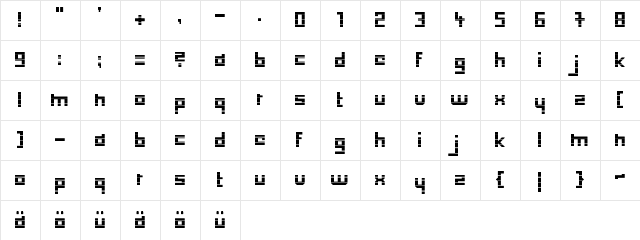
low-down-cut Regular
| Designer | eM-Vii |
Design Context for low-down-cut Typeface
low-down-cut is a composed and adaptable typeface that performs quietly and consistently across a wide range of design contexts.